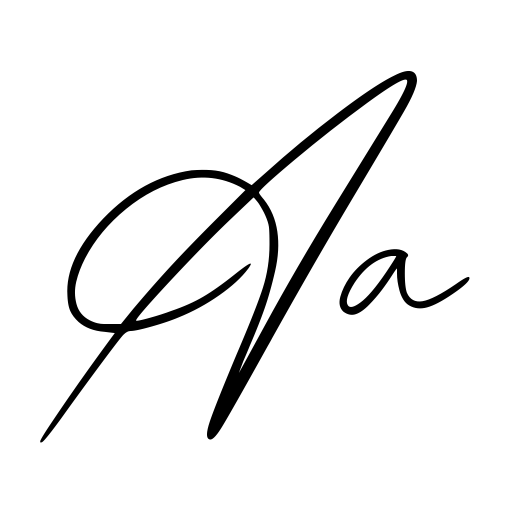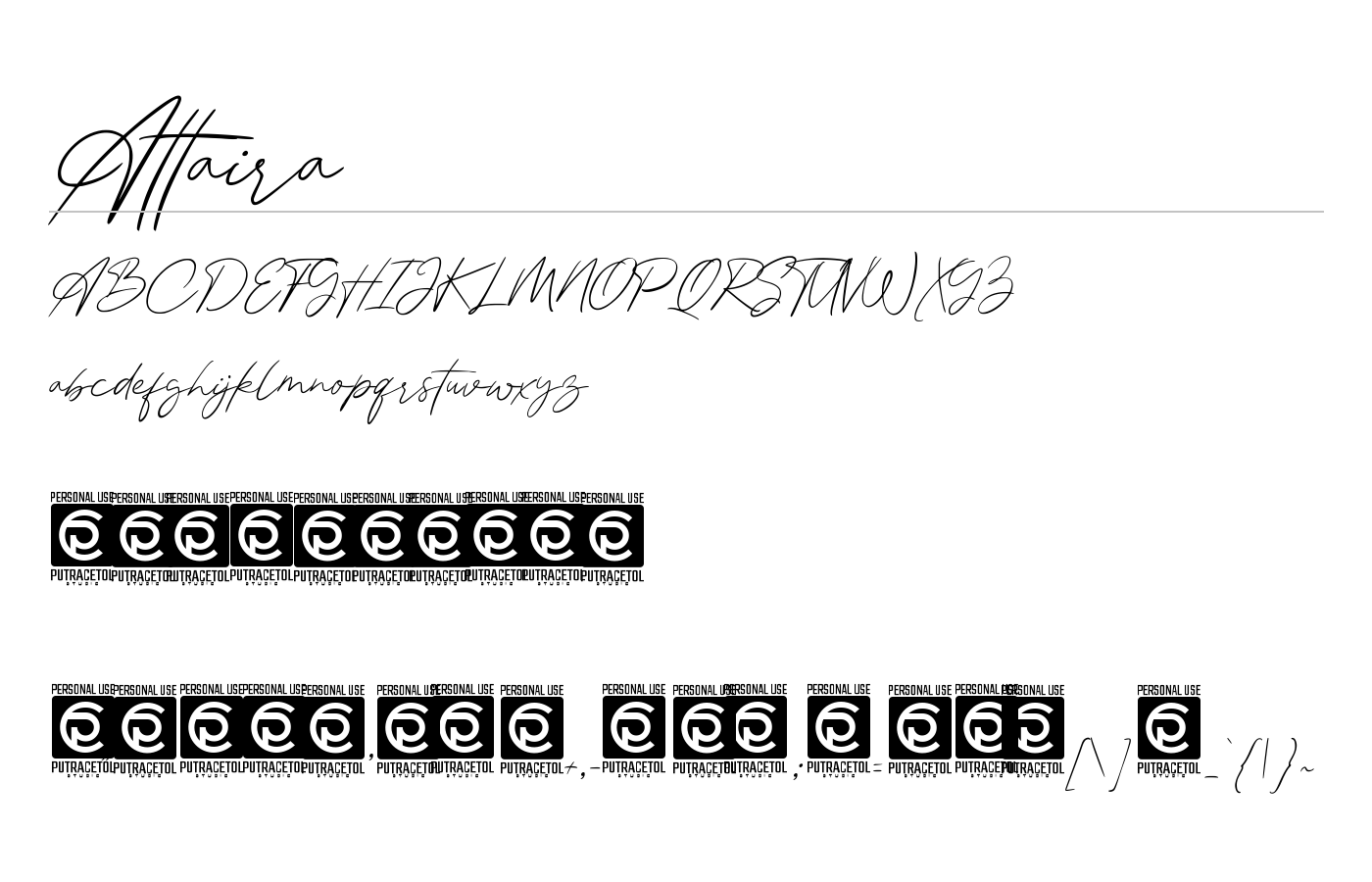
Attaira is an elegant, delicate script font featuring fine, flowing lines and a handwritten feel that brings a personal and sophisticated touch. Its light weight and tall, airy letterforms make it ideal for invitations, branding, and stylish editorial use where a graceful, modern script style is desired. This font works beautifully in designs that seek to convey femininity, luxury, and refined creativity.
Attaira Font
About Attaira Font
| Font family | Attaira Font |